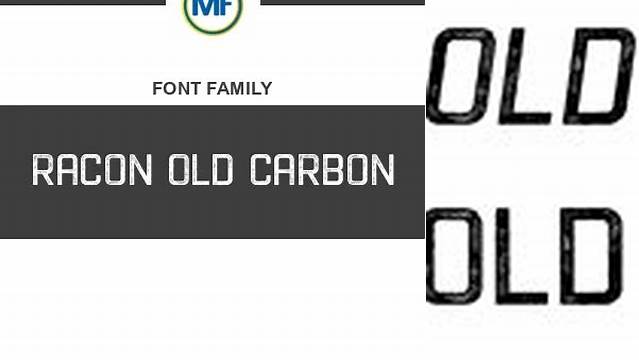
Hey guys! Ever stumbled upon a font that just screams vintage awesomeness? That's Racon Old Carbon for you! It’s got that perfect blend of retro charm and industrial grit that makes it a total standout. If you're looking to add some serious character to your designs, you've come to the right place. This guide will walk you through everything you need to know about Racon Old Carbon and how to snag it for free. Let’s dive in!
What is Racon Old Carbon Font?
Racon Old Carbon Font isn't just another typeface; it's a carefully crafted design that evokes a sense of history and texture. Its letterforms often feature distressed edges and a slightly worn appearance, mimicking the look of old carbon paper or vintage printing techniques. This makes it an excellent choice for projects aiming to capture a nostalgic or industrial feel. Imagine using it for posters, logos, or even website headers to give your work an authentic, aged aesthetic. The beauty of Racon Old Carbon lies in its ability to tell a story, adding depth and character that modern, clean fonts often lack. The deliberate imperfections and unique design elements contribute to its overall charm, making it a favorite among designers seeking a vintage touch. It's not just about the letters themselves but the atmosphere they create, transporting viewers to a different era and imbuing your designs with a sense of timeless appeal. Whether you're working on a branding project, editorial design, or digital art, Racon Old Carbon can be a powerful tool to enhance your creative vision and leave a lasting impression.
Why Choose Racon Old Carbon Font?
Choosing the right font can make or break a design, and Racon Old Carbon brings a unique flavor to the table. This font is perfect when you need a touch of vintage or industrial aesthetics. Its rugged, slightly distressed look adds character and depth that clean, modern fonts often lack. Think about using it for logos, posters, or website headers where you want to evoke a sense of nostalgia or history. The deliberate imperfections and textured appearance make it stand out, giving your project an authentic, handcrafted feel. It’s also incredibly versatile; you can pair it with simpler, cleaner fonts to create a balanced and visually appealing contrast. Whether you're designing for a craft brewery, a vintage clothing store, or a historical society, Racon Old Carbon can help you capture the right mood and connect with your audience on a deeper level. Its unique charm and ability to tell a story through typography make it a valuable asset in any designer's toolkit.
Using Racon Old Carbon in Graphic Design
When it comes to graphic design, Racon Old Carbon can be a real game-changer. Its distinct vintage and industrial vibe makes it perfect for projects that need a touch of nostalgia or ruggedness. Think about using it for logos, posters, and branding materials for businesses that want to project a sense of history or craftsmanship. The font's unique texture and slightly distressed appearance can add depth and character to your designs, making them stand out from the crowd. It pairs well with simpler, cleaner fonts to create a balanced and visually appealing contrast. For example, you could use Racon Old Carbon for headlines and a sans-serif font for body text. Experiment with different sizes and weights to find the perfect combination that suits your project. Also, consider the color palette you're using. Earthy tones, muted colors, and vintage-inspired hues can complement the font's aesthetic and enhance the overall look and feel of your design. Whether you're working on a beer label, a concert poster, or a website for a vintage store, Racon Old Carbon can help you capture the right mood and connect with your audience on a deeper level.
Racon Old Carbon Alternatives
If you're struggling to find a free or affordable version of Racon Old Carbon, don't worry! There are plenty of great alternative fonts that can give you a similar vintage or industrial feel. One popular option is Bebas Neue, a clean and modern sans-serif that pairs well with more decorative fonts. Another excellent choice is Montserrat, a versatile font with a geometric design that works well in a variety of contexts. For a more rustic look, consider using Arvo, a slab-serif font with a strong and sturdy appearance. If you're looking for something with a similar distressed texture to Racon Old Carbon, try searching for fonts with a